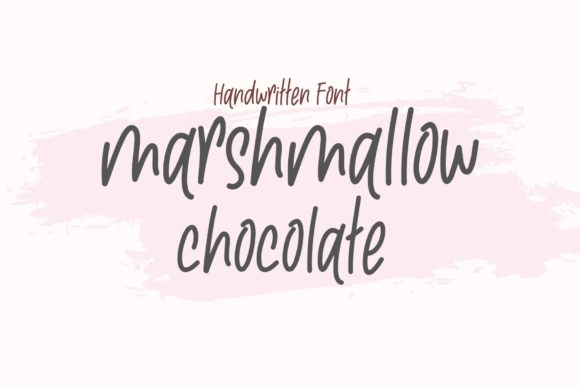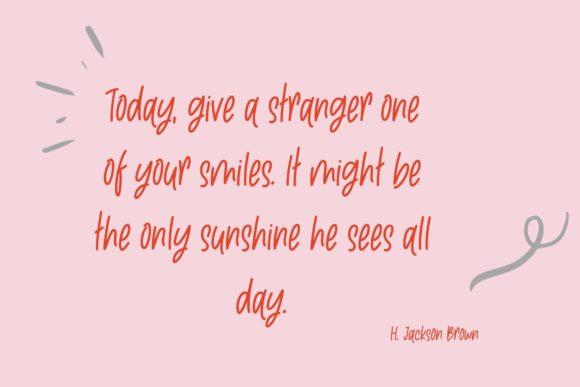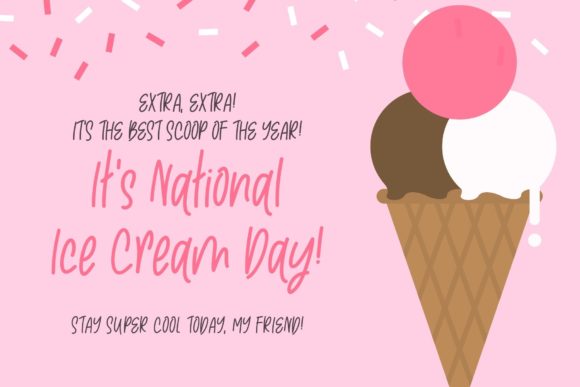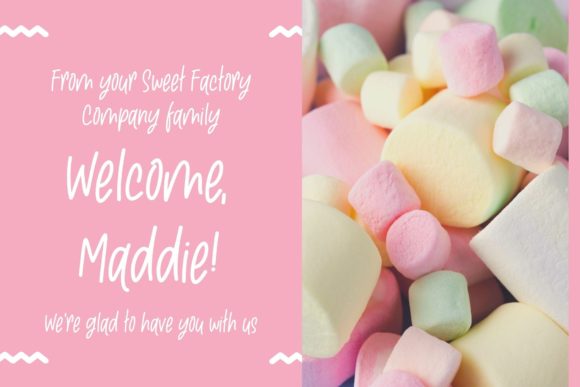
About Marshmallow Chocolate Font
Introducing Marshmallow Chocolate, a delightful and friendly handwritten font that will surely warm your heart. This font’s natural and unique style makes it a perfect match for a wide variety of design projects. With Marshmallow Chocolate, the possibilities are endless, and the only limit is your imagination!
Marshmallow Chocolate’s sweetness and friendliness shine through each letter, creating a warm and inviting ambiance. Its handwritten charm adds a personal touch to your designs, making them feel authentic and approachable. Whether you’re working on greeting cards, posters, social media graphics, or any other project, Marshmallow Chocolate brings a sense of warmth and familiarity that captivates your audience.
The versatility of Marshmallow Chocolate knows no bounds. It effortlessly adapts to various design styles, making it a perfect choice for a large pool of projects. From birthday invitations to branding, from children’s book illustrations to product packaging, Marshmallow Chocolate seamlessly fits in, adding a touch of whimsy and sweetness to every creation.
Imagine using Marshmallow Chocolate for special moments like celebrations and gatherings. The font’s friendly and natural look creates a joyful and playful atmosphere, making your designs feel like a delightful treat that everyone wants to indulge in.
For branding and logo design, Marshmallow Chocolate shines bright. Its handwritten style brings a sense of authenticity and uniqueness to your brand identity, helping you stand out and connect with your target audience on a personal level.
In the digital realm, Marshmallow Chocolate adds a touch of charm to social media graphics and blog headers. Its friendly appeal draws viewers in, encouraging engagement and interaction with your content.
Moreover, in longer passages, Marshmallow Chocolate maintains its legibility, making it a valuable asset for various print materials such as books, magazines, and brochures. Its natural flow ensures that your readers can comfortably immerse themselves in the written words.
In conclusion, Marshmallow Chocolate is more than just a font; it’s a delightful companion that brings sweetness and friendliness to your designs. Its natural and unique style fits seamlessly into a large pool of design projects, making it a versatile choice for any creative endeavor. Embrace Marshmallow Chocolate and watch as your designs come to life with warmth, authenticity, and charm. The only limit is your creativity, so let Marshmallow Chocolate be your trusted companion in crafting heartwarming and captivating designs that leave a lasting impression on all who encounter them.